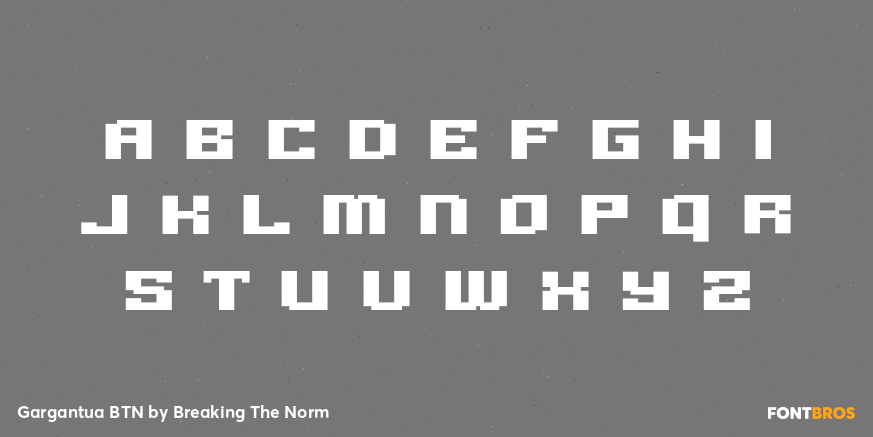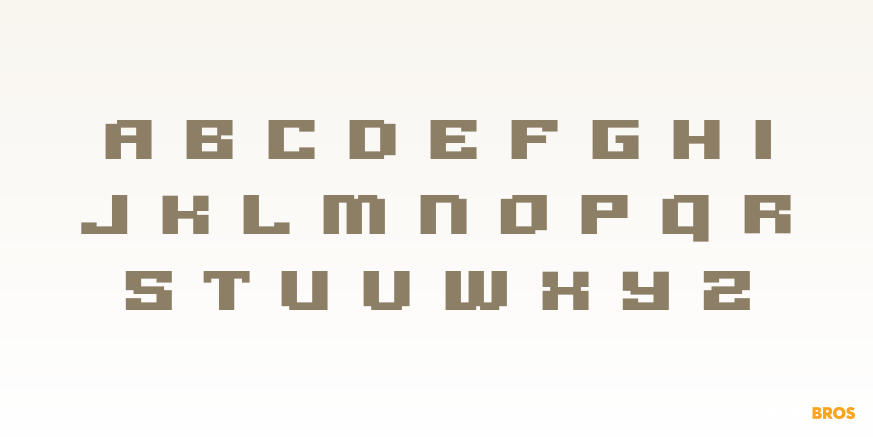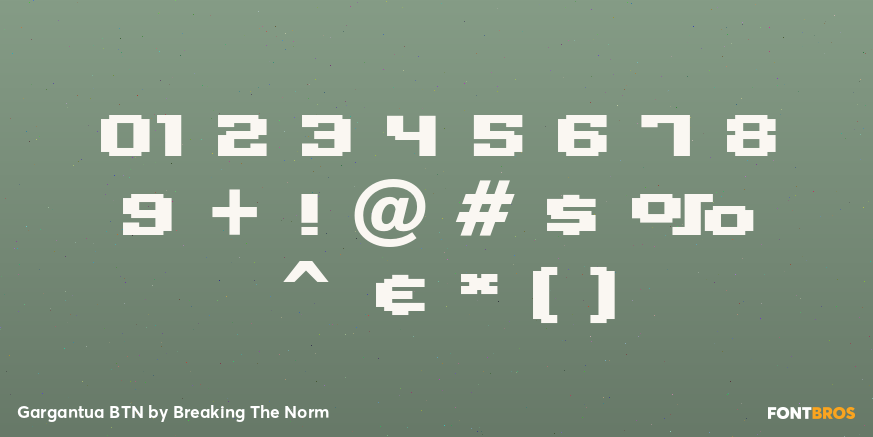
Gargantua BTN
Font Family by Breaking The Norm
Gargantua BTN is a heavyweight geometric display family with a bold bitmap-style flavor and an unapologetically tough presence. Its blocky construction gives it a powerful, industrial feel, while the alternate styles expand its visual impact for more stylized display work. Gargantua BTN is well suited for posters, gaming graphics, tech-inspired branding, packaging, signage, album-style artwork, and headlines that need to feel big, hard-edged, and commanding. With Regular, Outline, Shadow, and Chrome styles, the family offers multiple ways to create layered, high-impact typography with a chunky digital-era attitude.